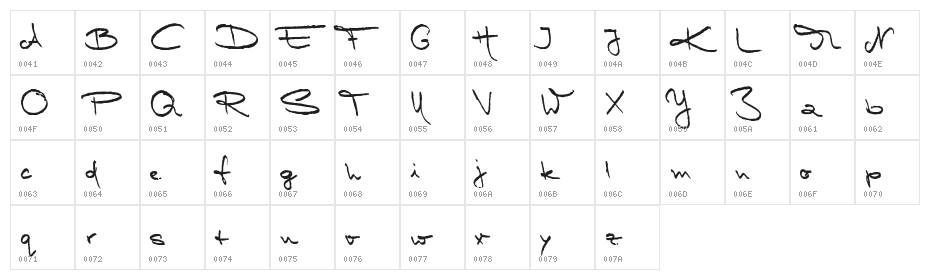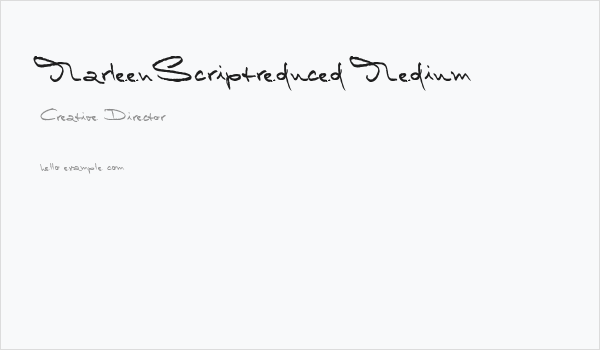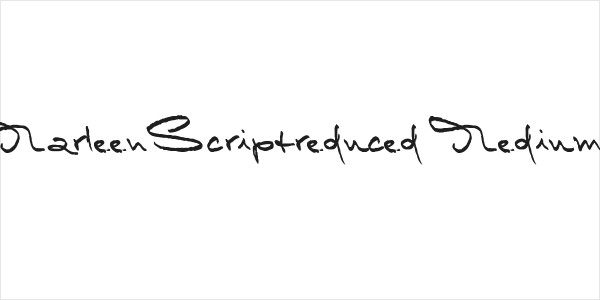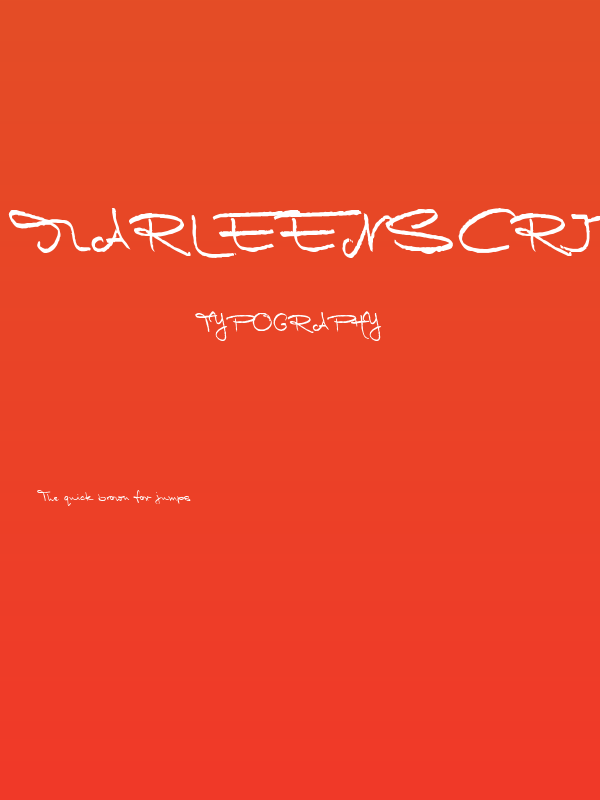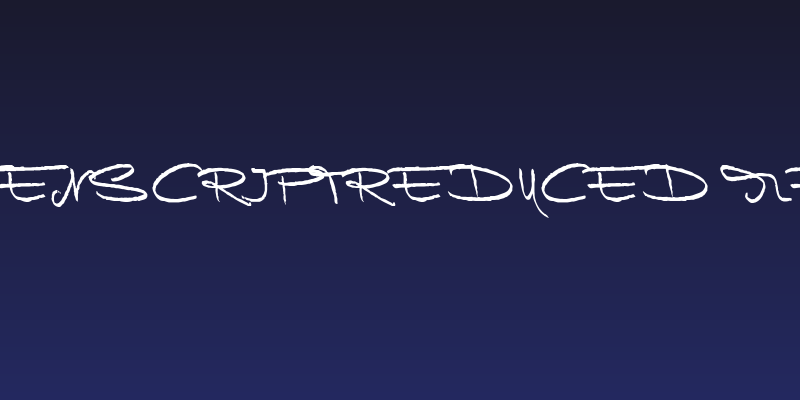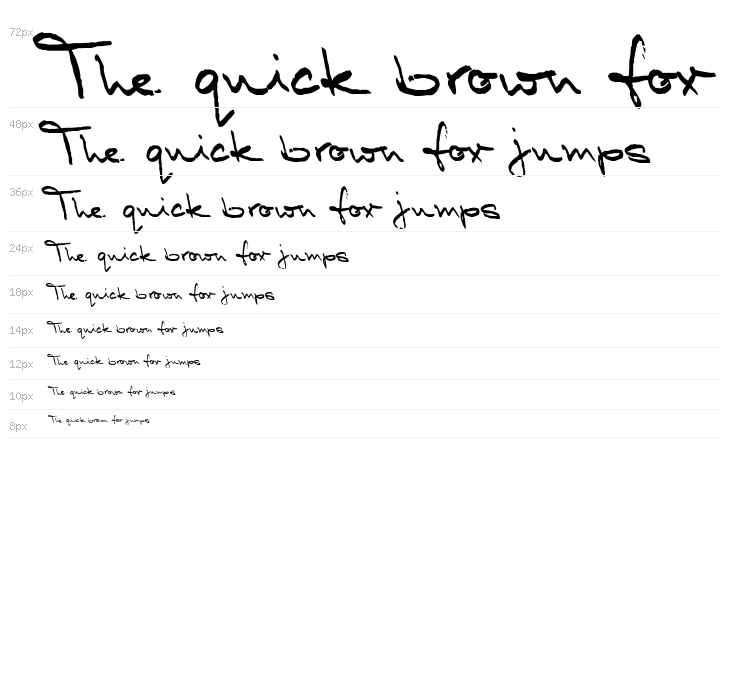
MarleenScriptreduced-Medium Font
MarleenScriptreduced-Medium Description
This font features a dynamic and expressive handwritten style, characterized by its fluid and organic strokes. The letters have a casual, artistic flair, with varying thicknesses that add a sense of movement and energy. The uppercase letters are bold and prominent, while the lowercase letters maintain a consistent flow, enhancing readability. The overall appearance is both playful and sophisticated, making it suitable for creative projects. The font's unique style is accentuated by its irregular baseline and slightly exaggerated curves, which give it a distinctive personality.